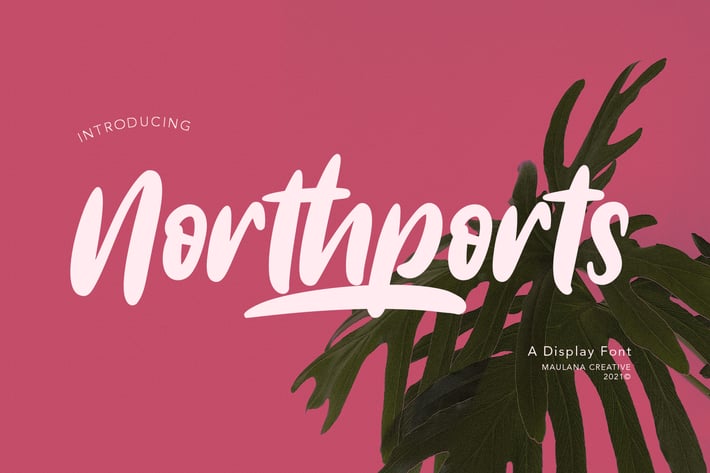
Northports Display Font
Northports is a casual handwritten font. With clean Bold stroke, slant and fun character with a bit of ligatures and extra Swash. To give you an extra creative work. Northports font support multilingual more than 100+ language. This font is good for logo design, Social media, Movie Titles, Books Titles, a short text even a long text letter and good for your secondary text font with sans or serif. Make a stunning work with Northports font.